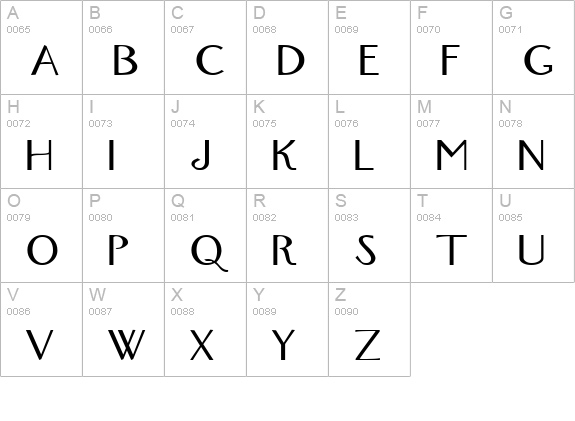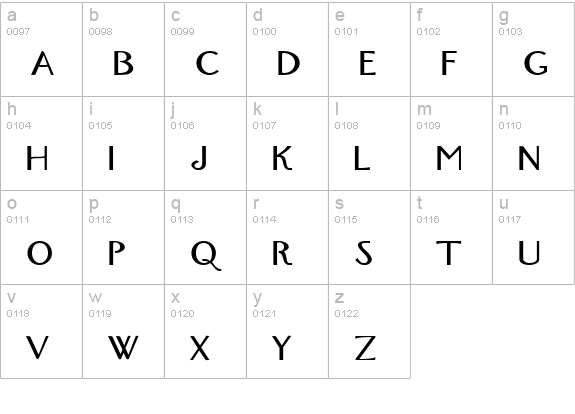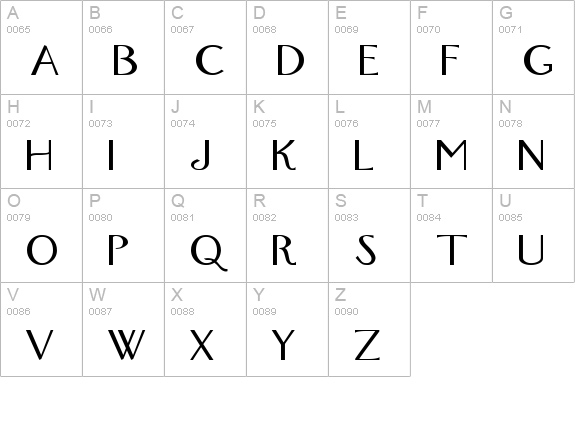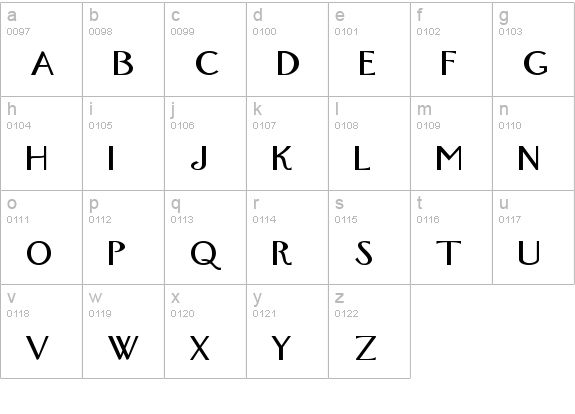
New York-Extended Normal Font Details
New York-Extended Normal is the standard, neutral, extended-width variant in the New typeface family \xE2\x80\x94 well suited to general body text, paragraphs, and standard typographic work.
New York-Extended Normal font is a versatile and modern typeface that exudes sophistication and style. With its clean lines and sleek design, this font is perfect for a wide range of design projects, from branding to editorial layouts. The extended characters add a unique touch to any text, making it stand out in a crowd. What sets New York-Extended Normal font apart is its seamless blend of elegance and functionality. Whether you're designing a logo, creating a website, or working on a print project, this font will elevate your work to the next level. Best of all, New York-Extended Normal font is completely free to download at FontsMarket.com. So go ahead and give your designs a fresh and modern look with this stunning typeface.